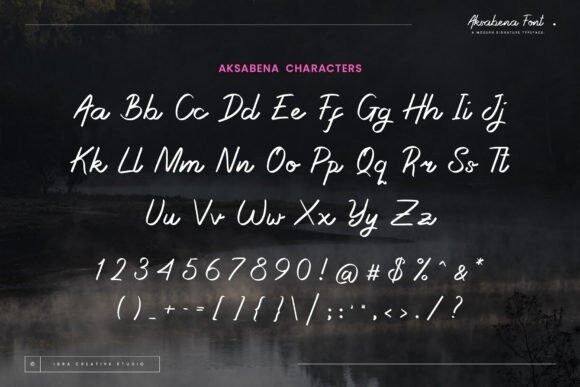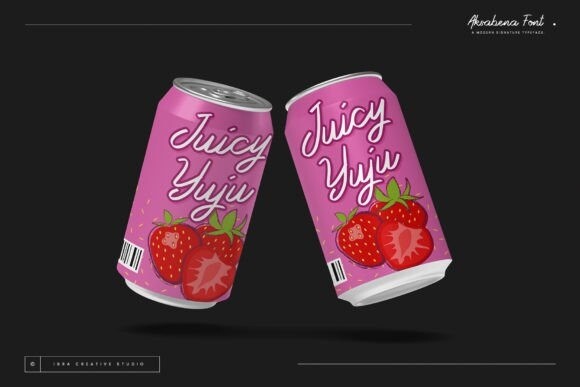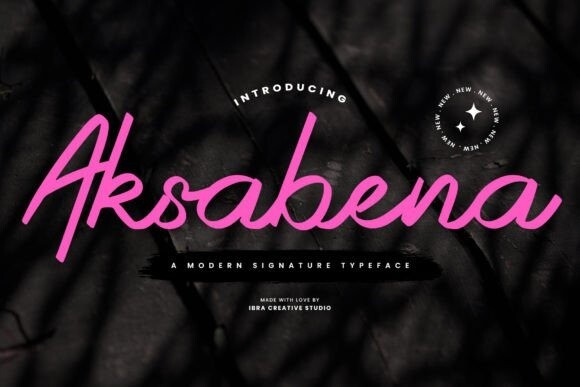
Aksabena Font
Aksabena Font, a contemporary signature typeface, effortlessly marries elegance with a modern aesthetic. Its gracefully flowing lines and distinctive strokes emulate the fluidity of a handwritten signature, infusing a sense of sophistication and personal touch into digital and print designs alike. Aksabena stands out with its sleek, minimalist design, capturing the essence of modernity while retaining the timeless appeal of a signature.